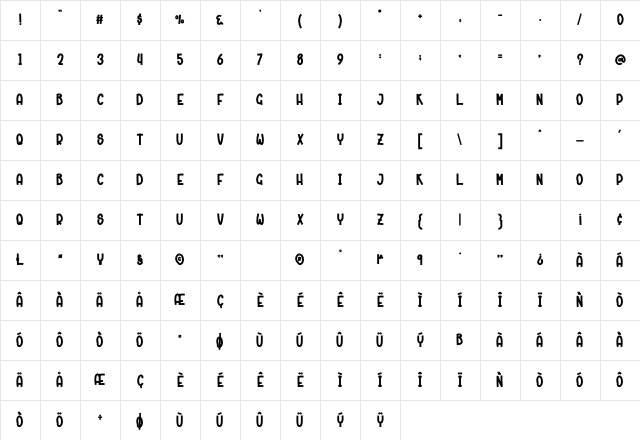
Santa December Regular
Design Context for Santa December
Santa December is a composed and adaptable typeface that performs quietly and consistently across a wide range of design contexts.